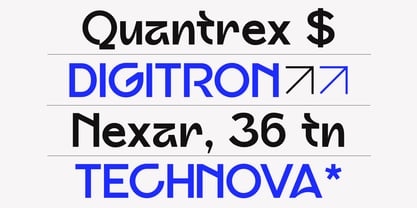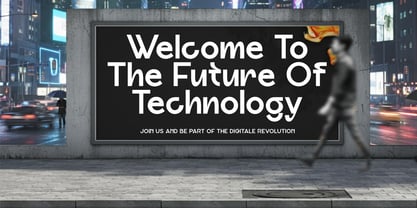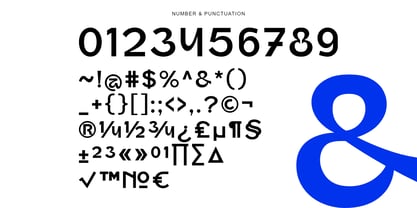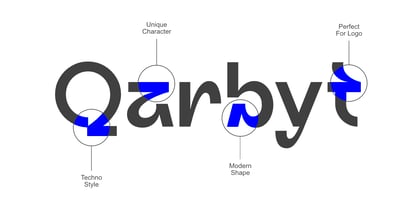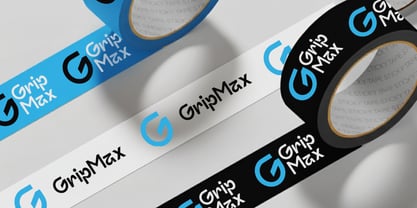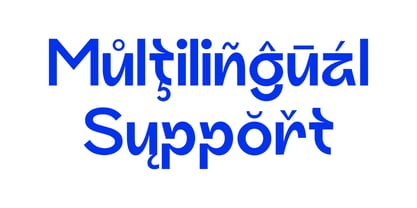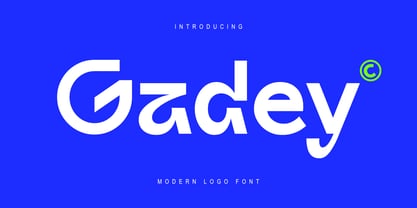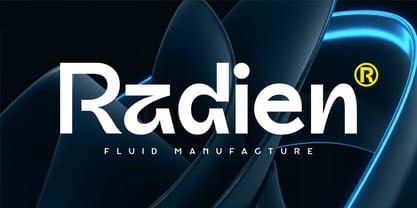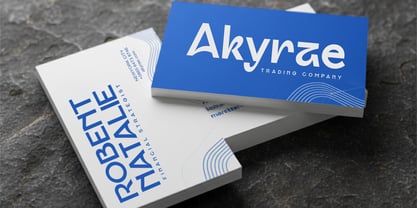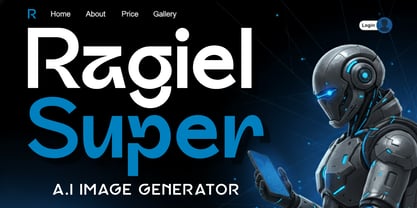
Gadey
by Sealoung
The Gadey Font Family was designed by Saiful Anwar and published by Sealoung. Gadey contains 1 styles. More about this family
Gadey – Modern Logo Font Gadey is a modern logo font designed with a futuristic and clean aesthetic. Each letterform is crafted with balanced geometry, bold cuts, and smooth curves creating a strong yet elegant appearance that works perfectly for modern branding. This font delivers a sense of technology, innovation, and confidence, making it ideal for logos, brand identities, startups, and digital products. Its distinctive shapes, especially in letters like G, a, and y, ensure your designs stand out and remain memorable. FEATURES Modern and futuristic style Unique and recognizable character shapes Perfect for logo and professional branding Includes uppercase, lowercase, numbers, and punctuation Clean and flexible for both print and digital use Multilingual Support Strengthen your brand identity with Gadey – the modern logo font for business, branding, and professional design.
Designers: Saiful Anwar
Foundry: Sealoung